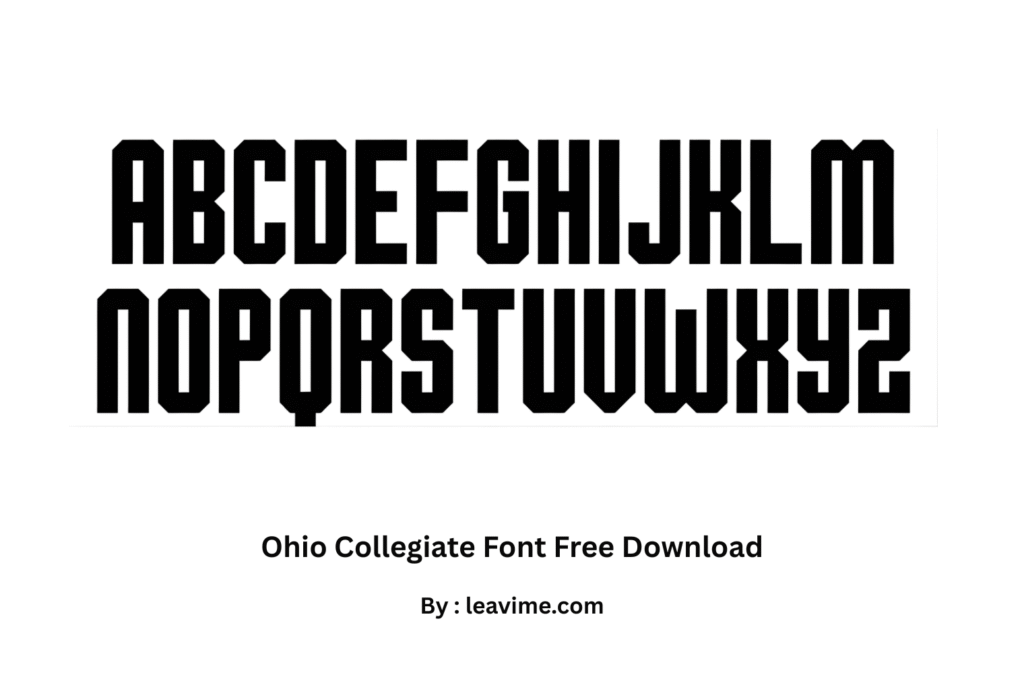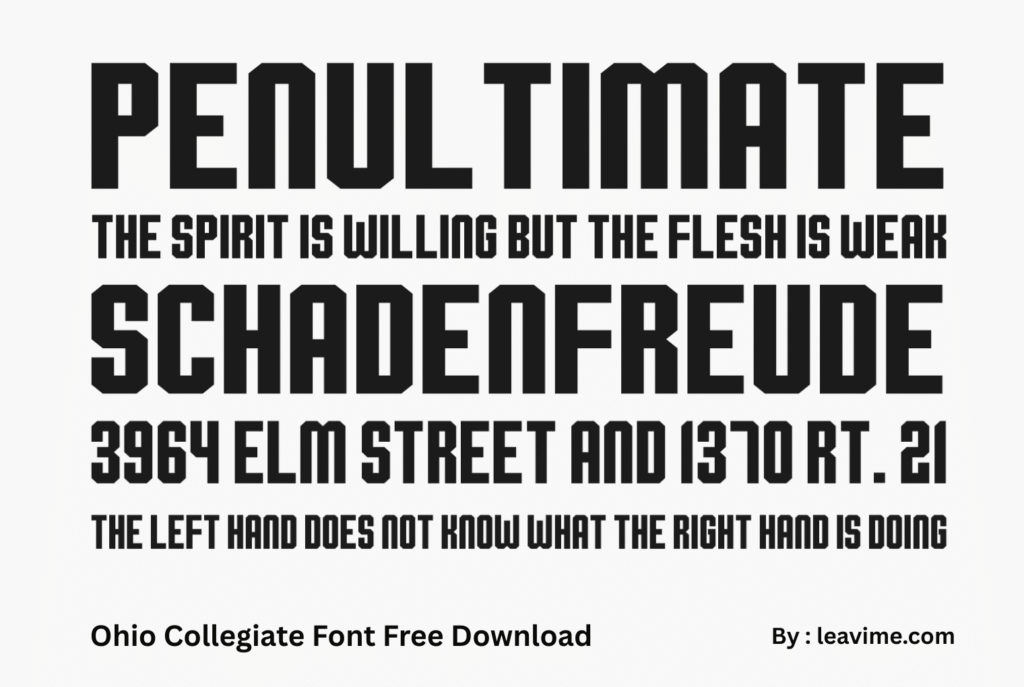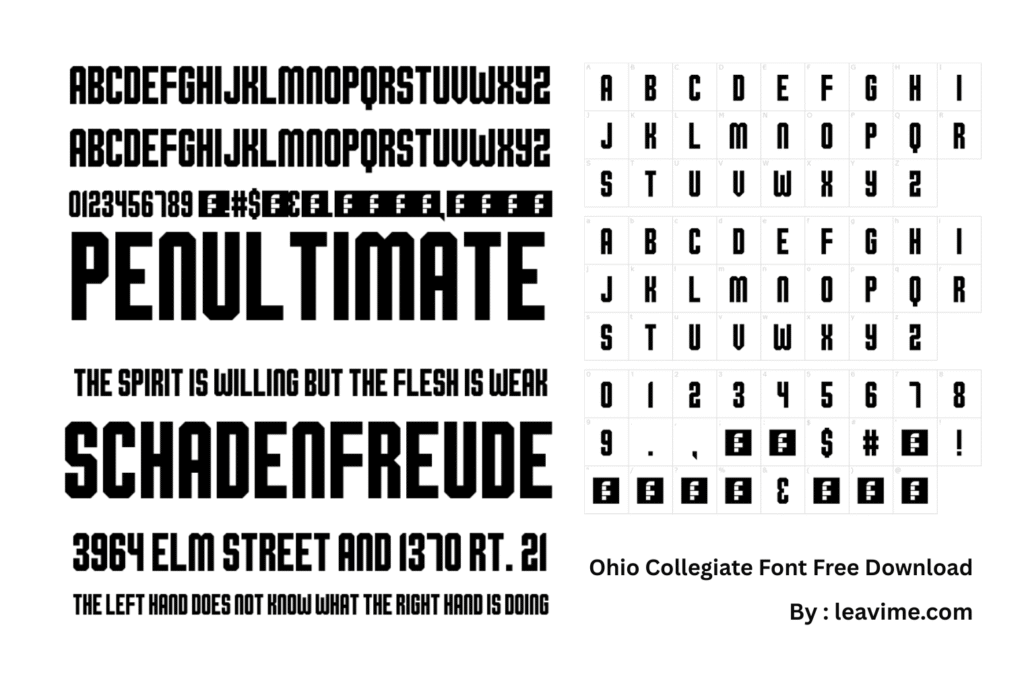
Ohio Collegiate There isn’t a single “Ohio Collegiate” font, as each university in Ohio uses its own unique typeface. However, the most recognized collegiate styles often feature bold block-style serifs, while modern designs may also use clean sans serif fonts for a more contemporary look.
Fonts Used by Ohio University
Ohio University’s official branding fonts move away from the traditional collegiate block style. Instead, the university uses a refined and modern type system featuring:
- P22 Mackinac – a serif typeface that combines timeless elegance with a contemporary touch.
- Termina – a bold sans-serif font designed for impactful headlines.
- Industry – a unique sans-serif font reserved exclusively for design professionals.
Free and Popular Collegiate Fonts
- Varsity – A timeless design that captures the look of traditional sports jerseys and university apparel.
- College Block – A strong, blocky font with a bold presence that fits perfectly in athletic themes.
- Freshman – One of the most popular collegiate fonts, featuring bold lines and a confident block style.
- Octin College – A versatile college font offered in multiple weights for a variety of design applications.
- Jersey M54 – Inspired by athletic team lettering, perfect for sports-themed graphics.
- Graduate – A clean, professional example of the classic collegiate block-lettering style.